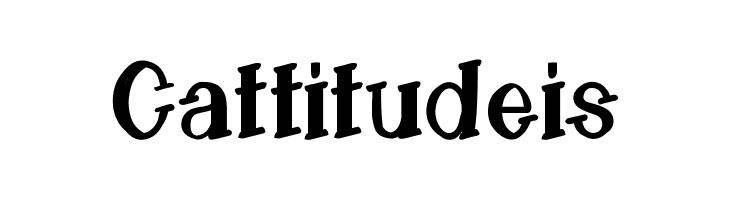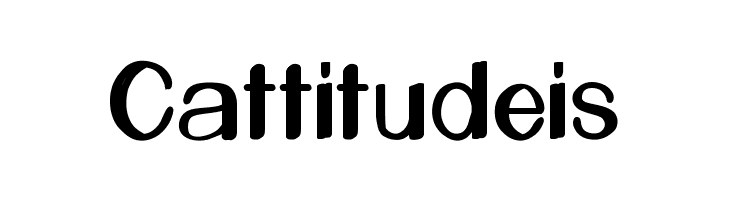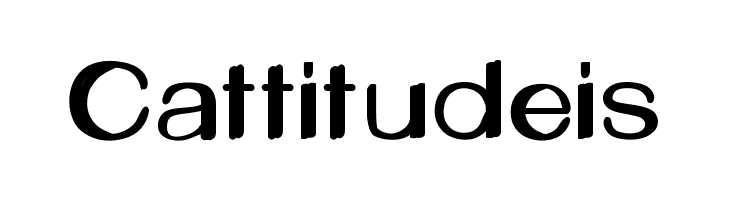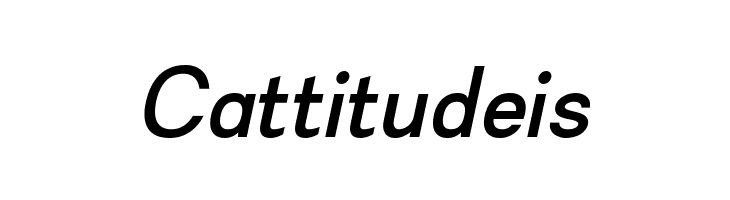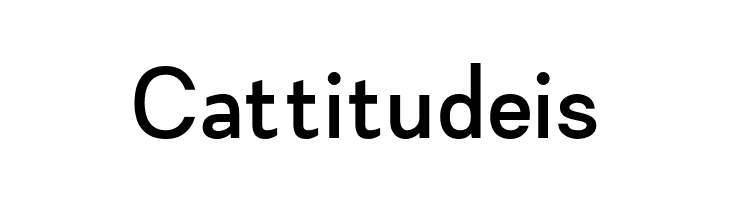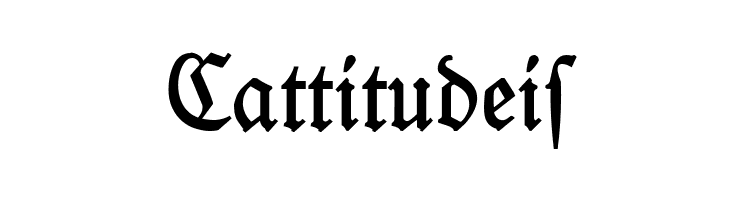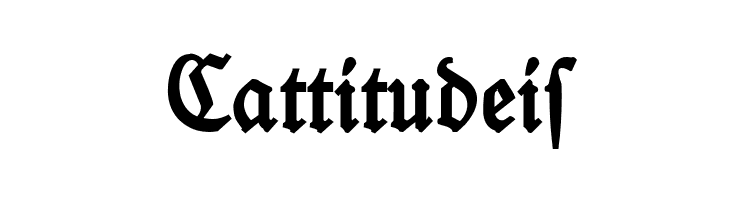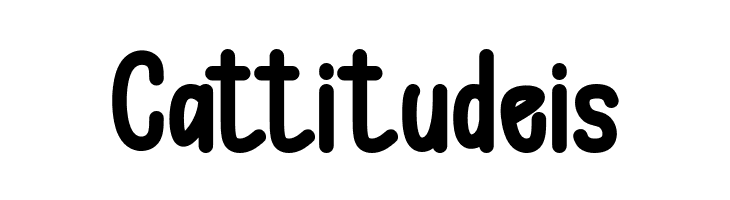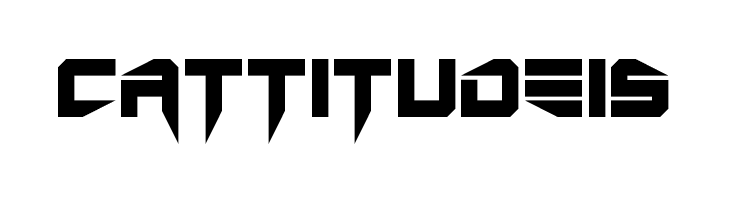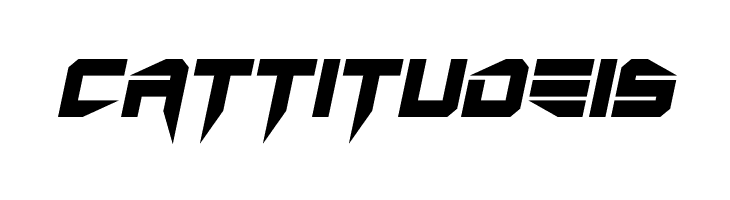
A bold, decorative font with a military-inspired, stencil-like design.
A bold, ornate blackletter font with intricate gothic details.
A bold, ornate Blackletter font with intricate details and historical elegance.
A bold, blackletter typeface with intricate, angular strokes and a traditional Fraktur style.
A bold, slightly italic serif font with dynamic and elegant characteristics.
A bold, italic serif font with a dynamic and elegant style.
A bold, modern sans-serif font with low contrast and slightly condensed width.
A bold, geometric sans-serif font with a modern and clean aesthetic.
Bold, italicized font with geometric shapes and clean lines.
A bold, geometric sans-serif font with a modern and assertive style.
A modern, geometric sans-serif font with a clean and professional look.
A sleek, modern font with a light weight and subtle italic slant.
A bold, playful font with rounded, smooth characters and a slight slant.
A playful, bold font with rounded edges and a slightly condensed form.
A bold, playful font with quirky, irregular shapes and a whimsical style.
A bold, condensed font with playful yet sophisticated characters.
A bold, playful sans-serif font with rounded characters and a modern feel.
A bold, playful font with rounded edges and a friendly appearance.
A bold, rounded typeface with a playful and whimsical style.
A bold, italic font with a playful and dynamic style.
A bold, rounded font with a friendly and modern appearance.
A bold, semi-rounded font with a modern and approachable style.
A bold, modern sans-serif font with geometric structure and uniform strokes.
A bold, calligraphic font with a mirror-writing style and artistic flair.
A bold, dynamic script font with exaggerated curves and sharp edges.
A bold, angular font with a futuristic and aggressive style.
A bold, angular, and futuristic font with an aggressive, dynamic style.
A bold, playful handwritten font with rounded, slanted characters.